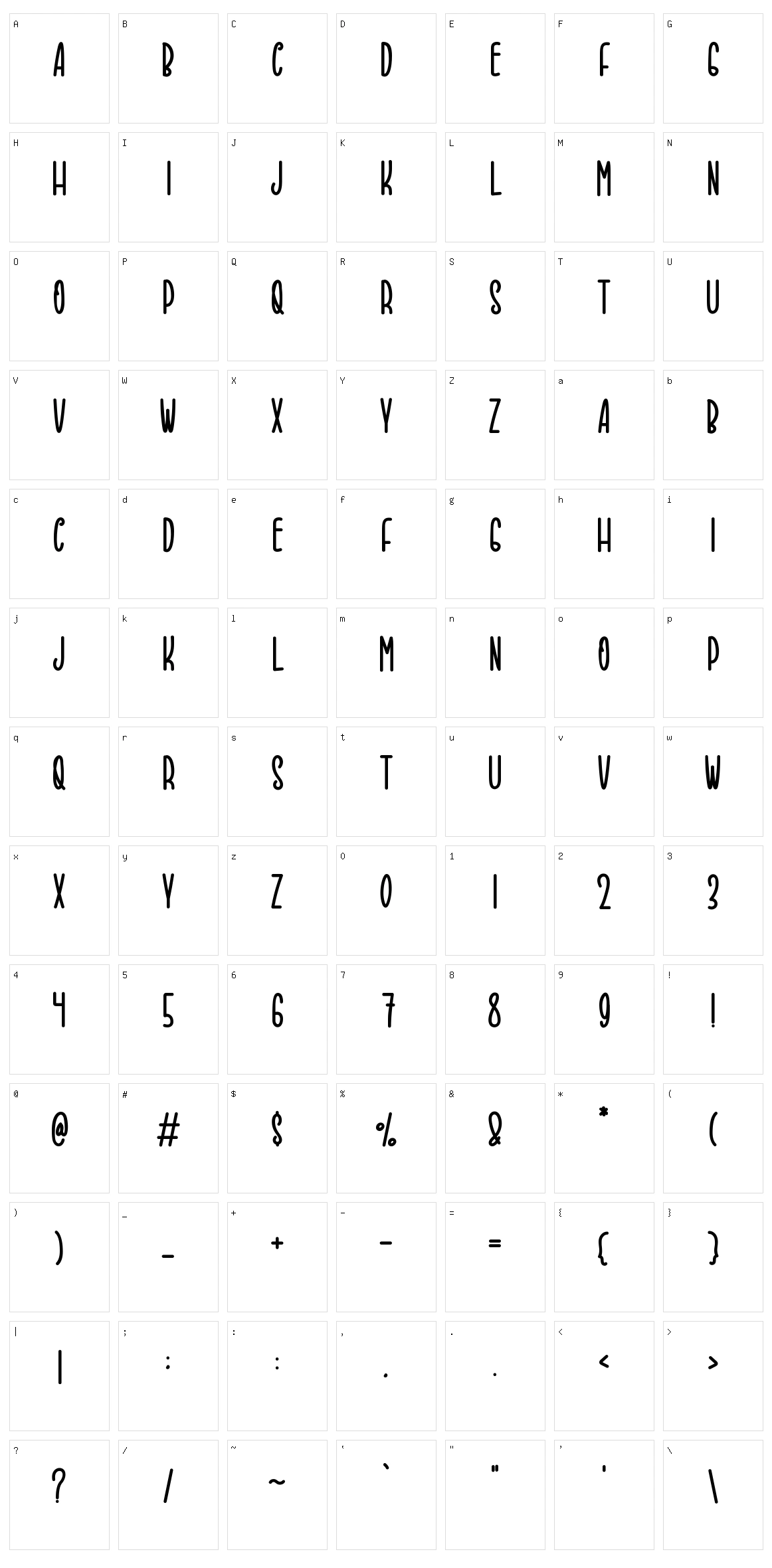
The free font Happy Candy is carefully designed by Hamsah, showcasing a thoughtful balance of creativity and usability and falls under the Cartoon font style. When you download the ZIP file, it contains only 52.59 KB of font files, making it lightweight and quick to download. Please review the license details below to understand permitted usage and distribution rights. If license information is not available, we recommend using this font for personal projects only or contacting the author directly for commercial usage permissions.